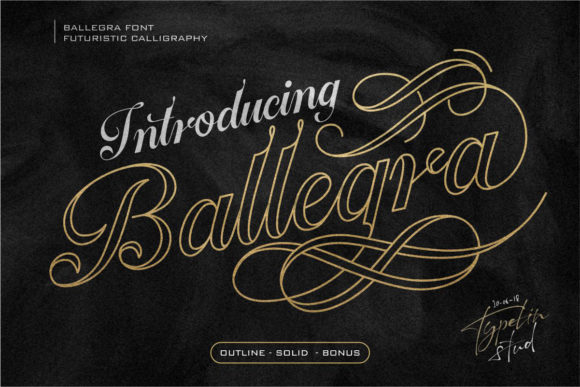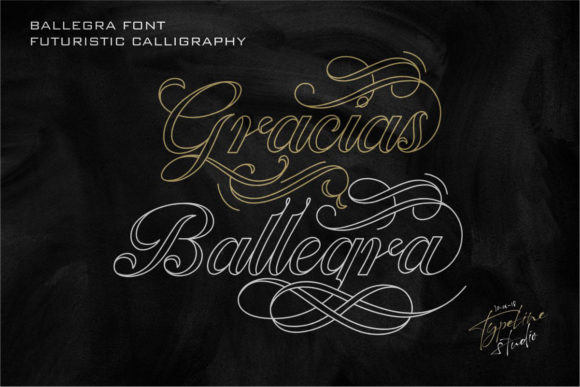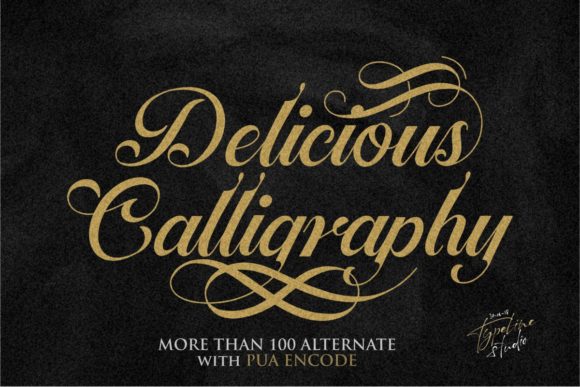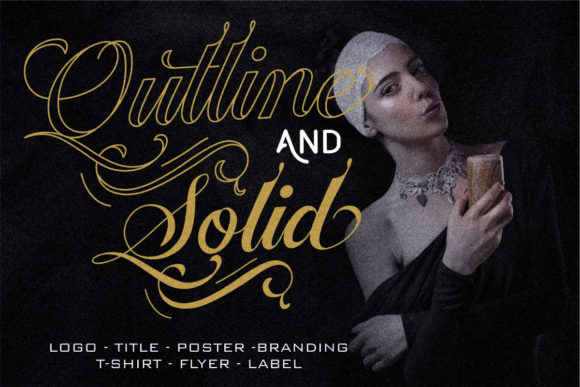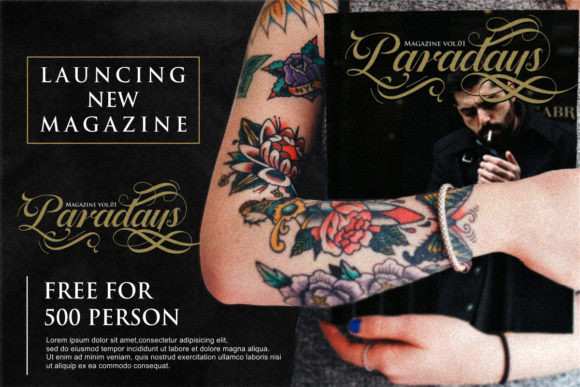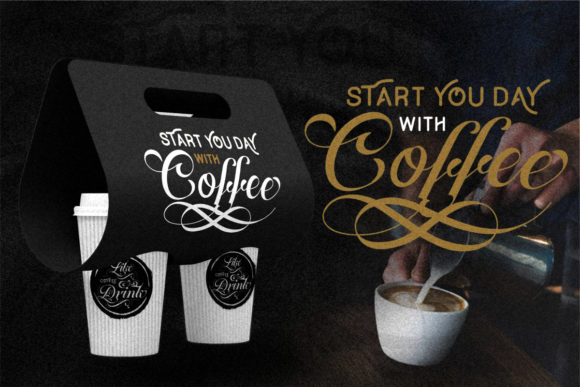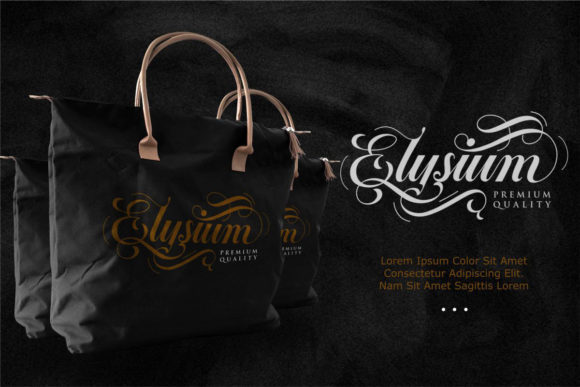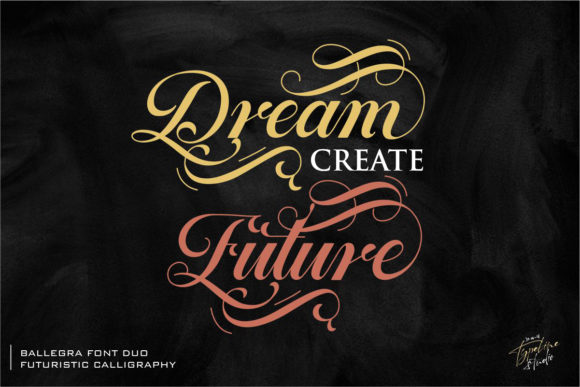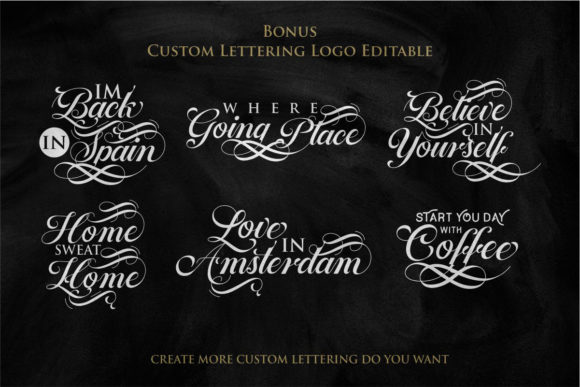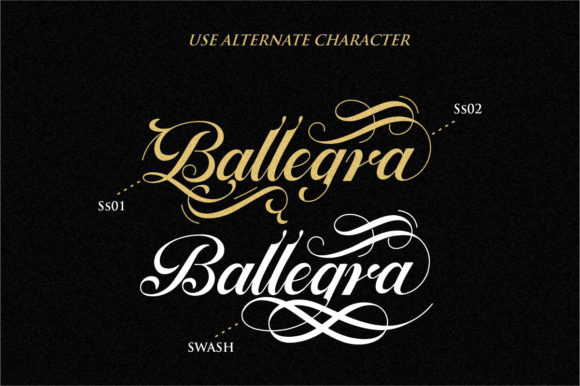
Ballegra Font
The Ballegra is a striking, yet elegant calligraphy font. It has a futuristic and unique look which makes it perfect for creating a design that needs to stand out.